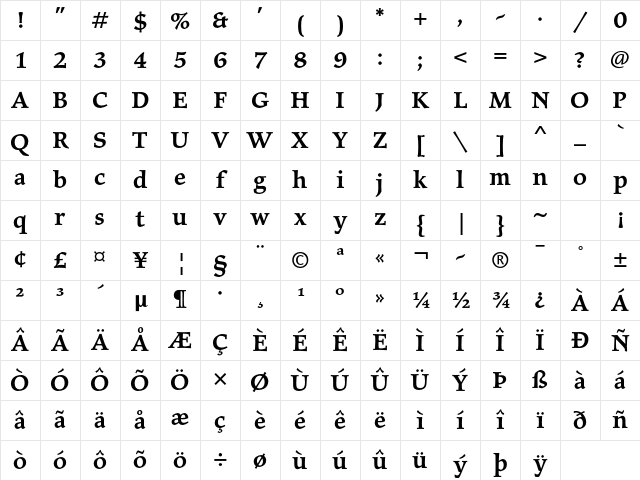
Elysium Std Medium
Designer: Michael Gills
Design Context for Elysium Std
Elysium Std is a composed and adaptable typeface that performs quietly and consistently across a wide range of design contexts.